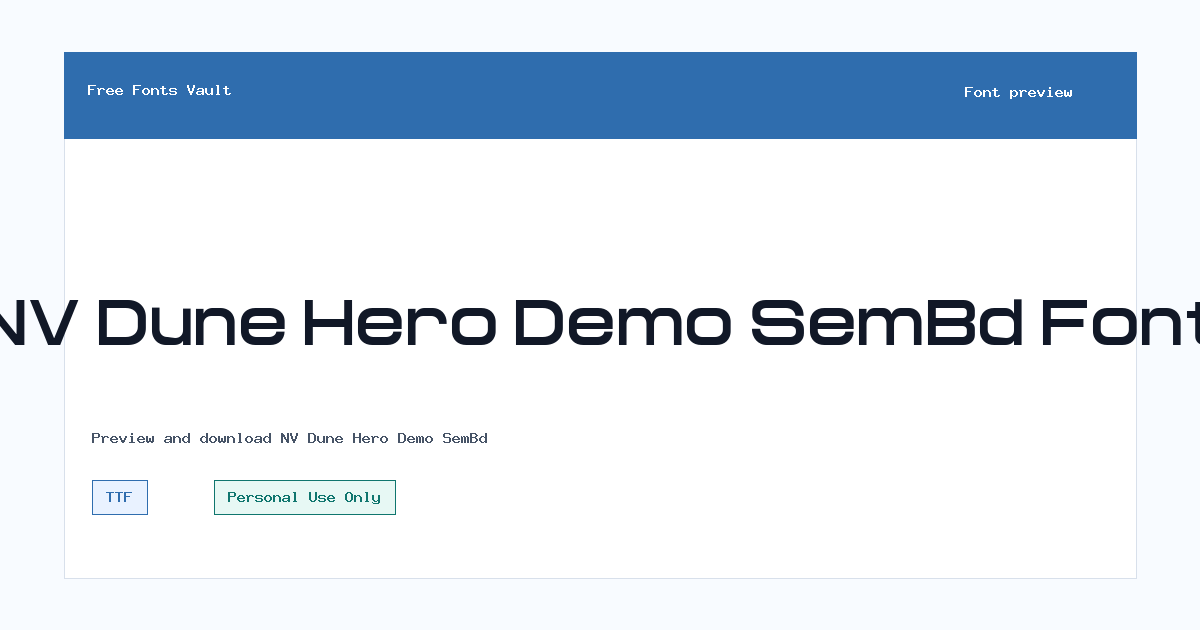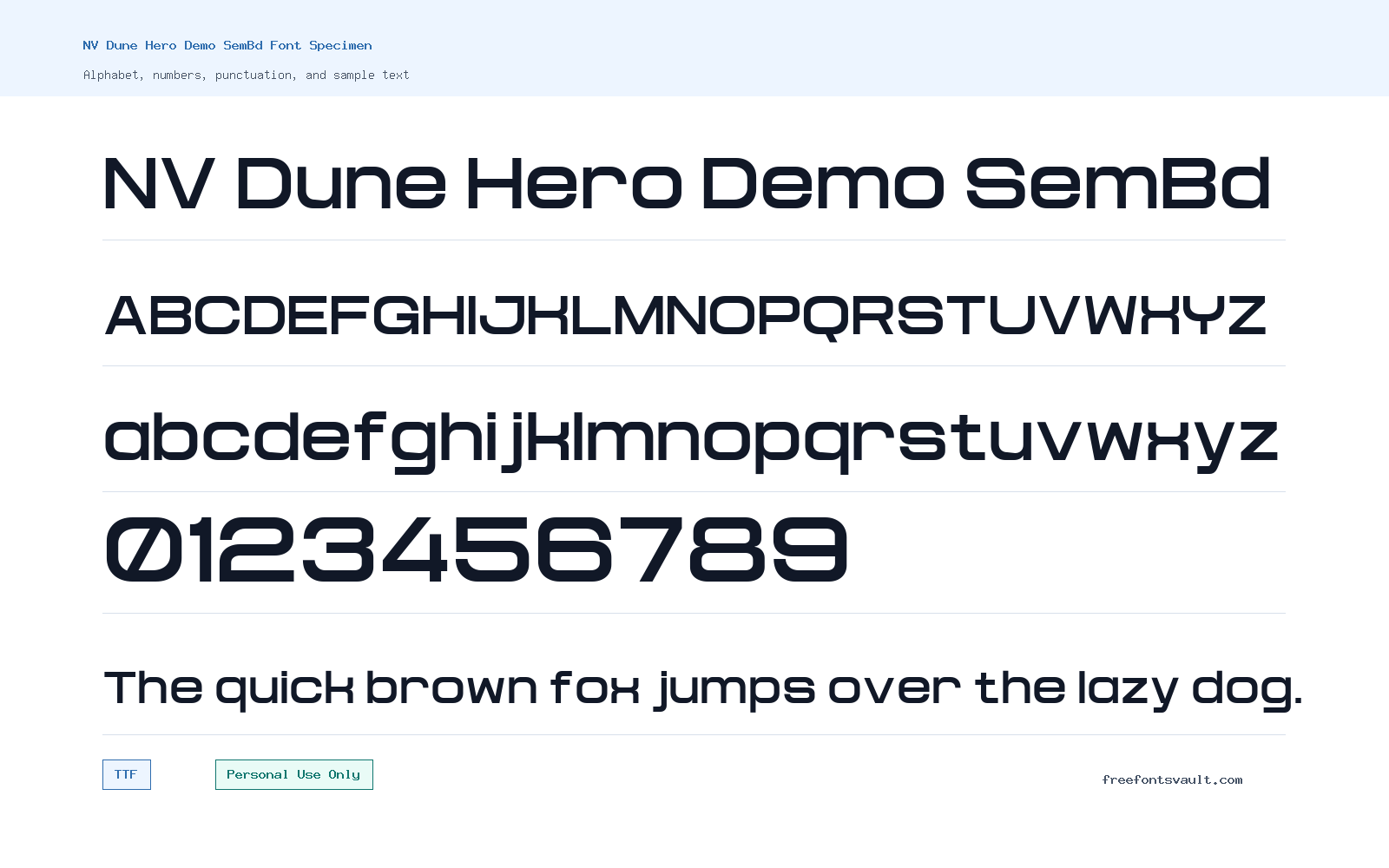
NV Dune Hero Demo SemBd
NV Dune Hero Demo SemBd font.
NV Dune Hero Demo SemBd is a SemiBold TrueType font from NovaraType with a personal-use license. It is best approached as a display font for testing bold headings, logo concepts, poster titles, and visual mockups before moving into any client or commercial work.
About NV Dune Hero Demo SemBd
NV Dune Hero Demo SemBd has a strong SemiBold weight that gives text a firm presence without becoming as heavy as a full black or extra-bold style. Because the font file is marked as a normal-style TTF with a 700 weight, it should work well for short, high-impact text where shape, spacing, and silhouette matter more than long-form reading. Use the preview box to test words in uppercase, mixed case, and numbers, since display fonts can feel very different depending on letter combinations. Pay close attention to wide letters, tight pairs, and repeated characters in names, brand marks, game titles, poster headers, or social graphics.
For designers, this font is most useful at larger sizes. Try it for hero titles, cover text, YouTube thumbnails, event artwork, packaging drafts, and website header mockups. It may also be useful for logo exploration, but a logo should always be checked carefully for uniqueness, spacing, and licensing before release. If you are building a full layout, pair NV Dune Hero Demo SemBd with a quieter sans serif or serif for body copy. Let this font handle the attention-grabbing words, then use a simpler companion font for descriptions, captions, menus, and paragraphs. That contrast will make the design easier to read and keep the SemiBold style from overwhelming the page.
- SemiBold 700 weight suited to short display text, headings, and strong visual hierarchy.
- Normal font style, which makes it straightforward to test as a main display face without relying on italic or decorative alternates.
- Useful for logo drafts, posters, web hero sections, social graphics, title cards, and other large-size typography tests.
- Best used for short text settings where the shape and weight of the letters can be judged clearly.
- Poster titles and event graphics that need a bold, direct headline.
- Logo concept sketches where a SemiBold sans serif look is being explored.
- Website hero sections, landing page mockups, and banner typography.
- Social media graphics, thumbnails, and title cards with short phrases.
- Packaging drafts, game-style headings, and editorial cover concepts.
- Testing brand names, product names, initials, and short slogans before choosing a final licensed typeface.
What weight is this font?
The listed weight is 700, which corresponds to a SemiBold or bold-leaning display weight.
Is this font good for body text?
It is better suited to short display text such as titles, names, and headings. For paragraphs, pair it with a simpler text font that is easier to read at smaller sizes.